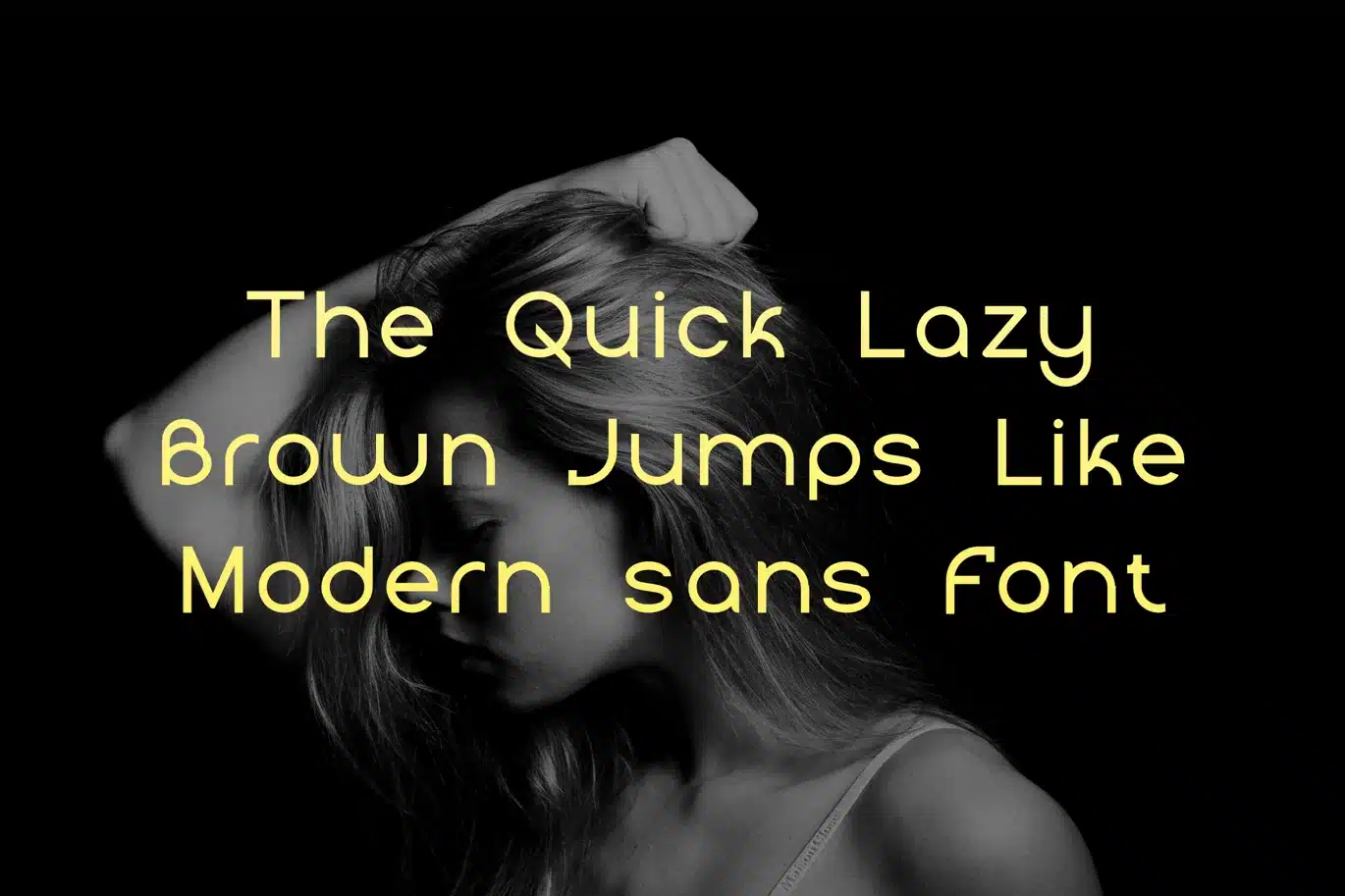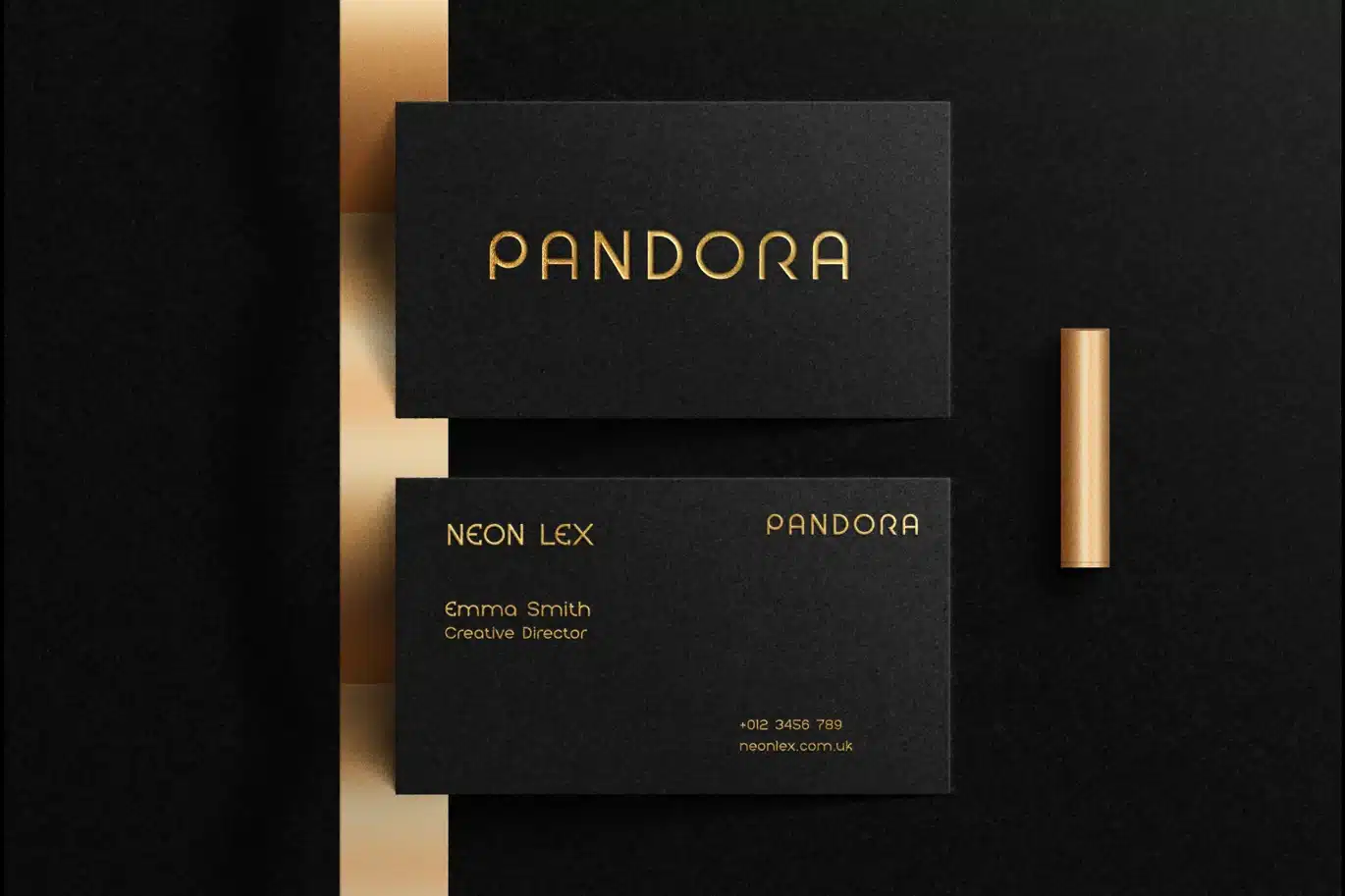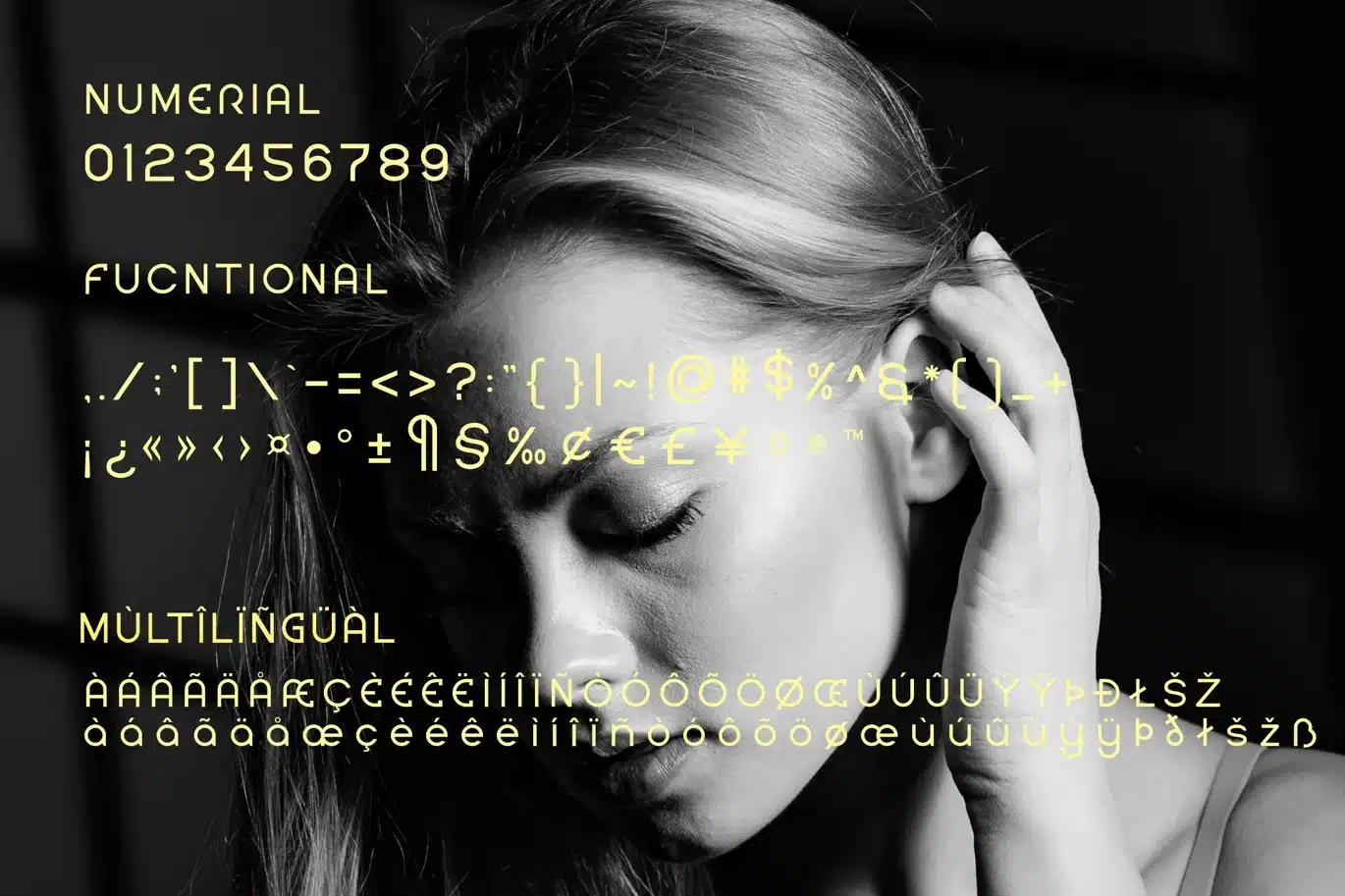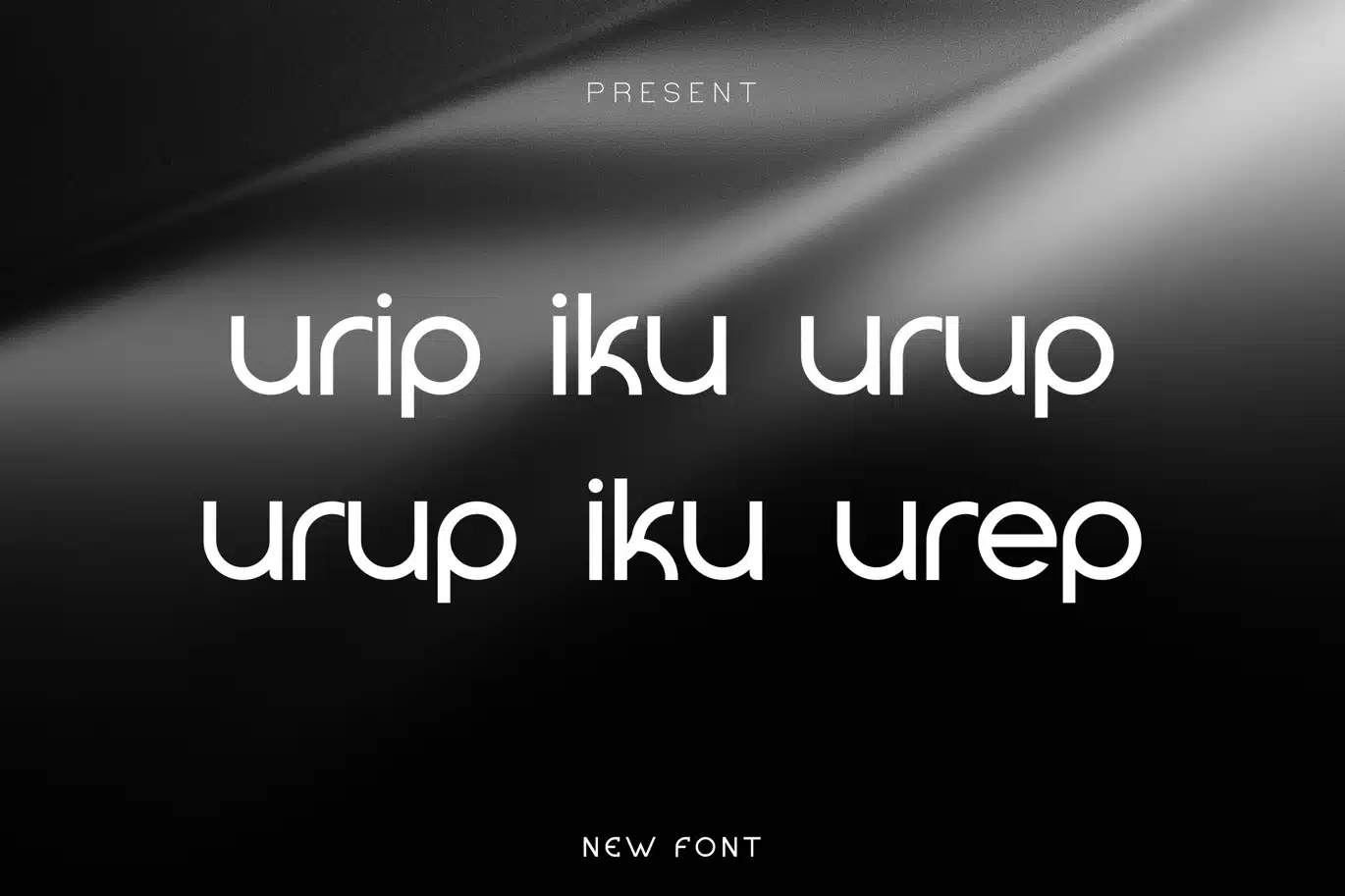
Pandora – Sans Display Font universal
Introducing our new product Pandora - Sans Display Font universal
Pandora - Sans Display Font universa is and awesome and authentic display font.
- Number & Symbol
- UPPERCASE, lowercase